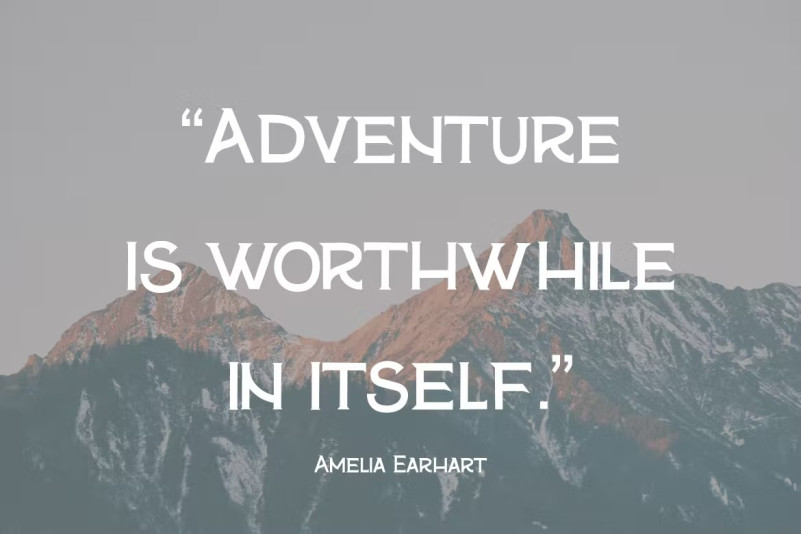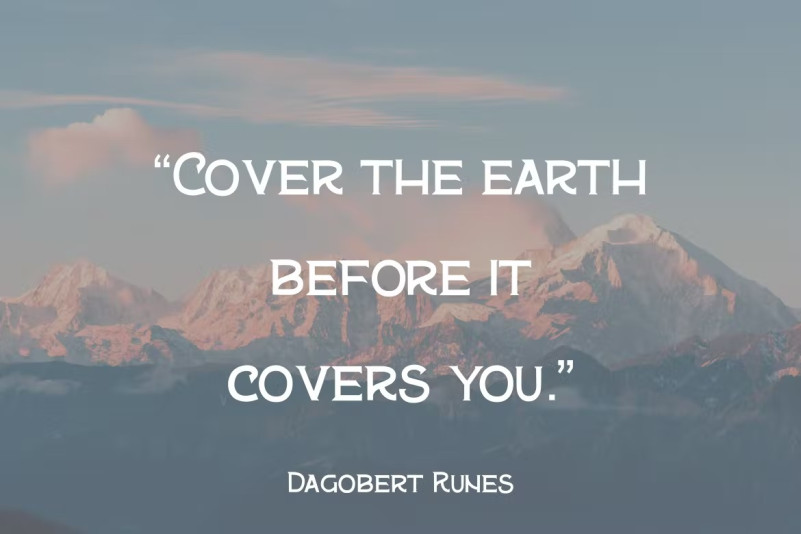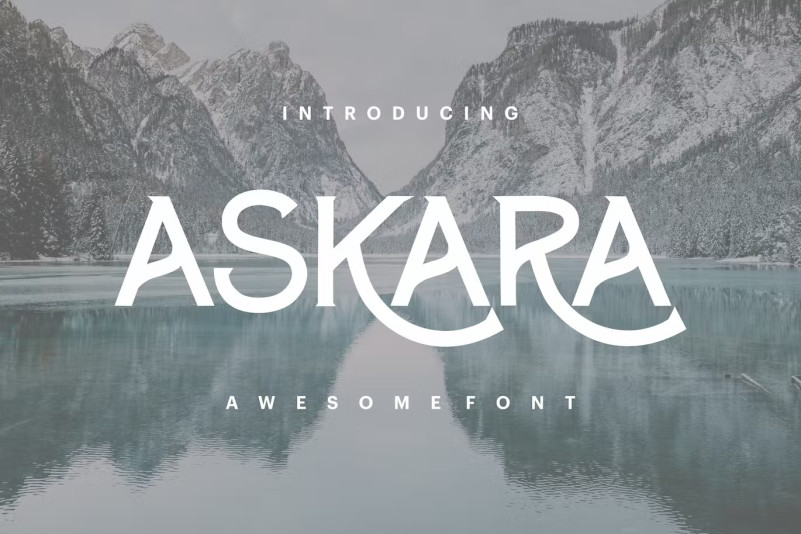
Askara Awesome Font
Askara is an awesome font that we designed with a quirky twist for your needs. This cool font is complete with uppercase, lowercase, numbers, and symbols. This very strong and crisp font is perfect for headings, typography, posters, magazines, brochures, packaging, websites and much more for your design needs, to make your designs look cooler.